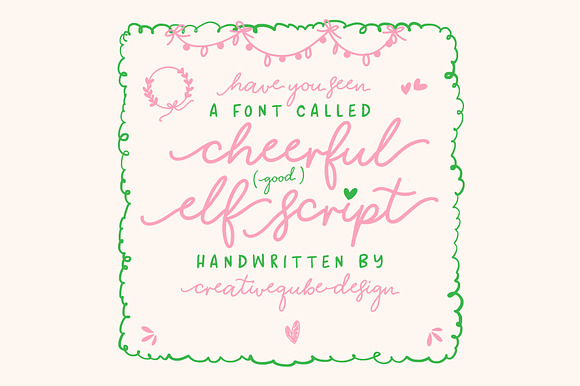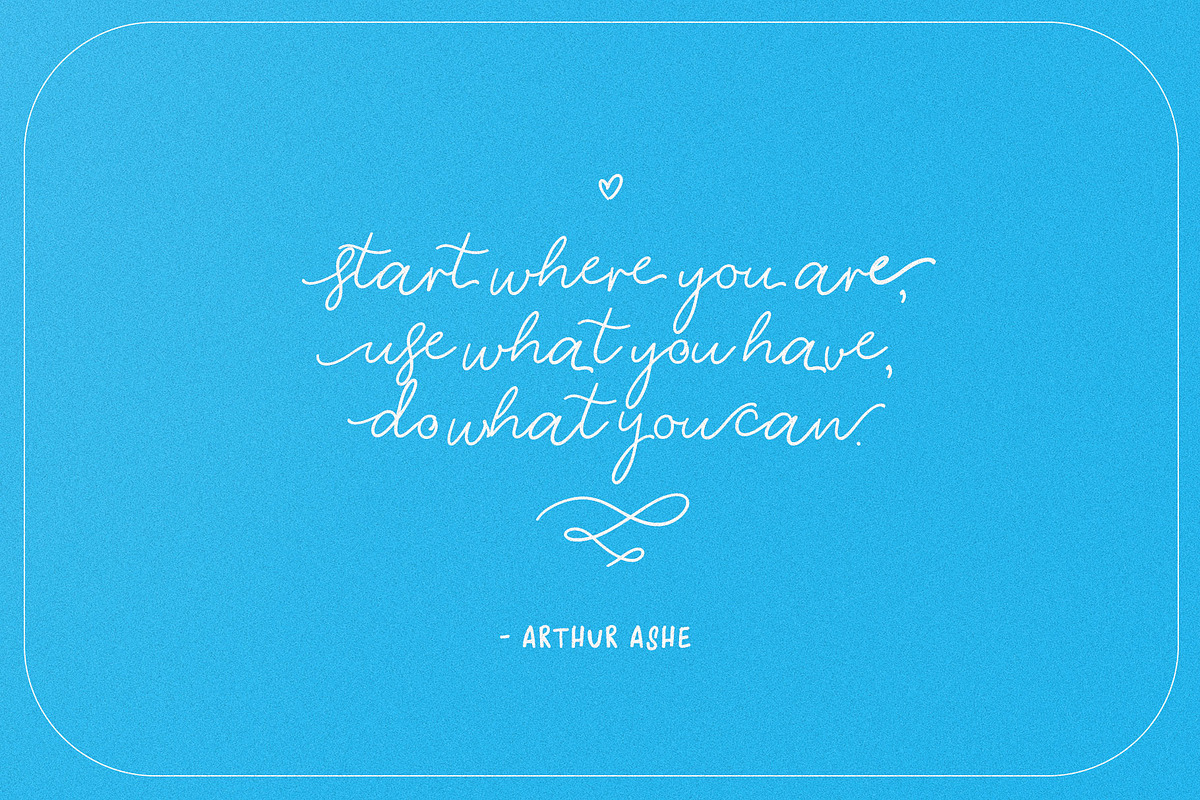
Cheerful Elf Script Font
Introducing Cheerful Elf Script font. Loaded with adorable swashes and extras, this font is perfect for so many applications.
Cheerful Elf comes in regular, bold and italic.
Why Cheerful Elf Script Font is worth a look
Cheerful Elf Script Font by Creativeqube Design fits naturally into Branding, posters, packaging, typography.